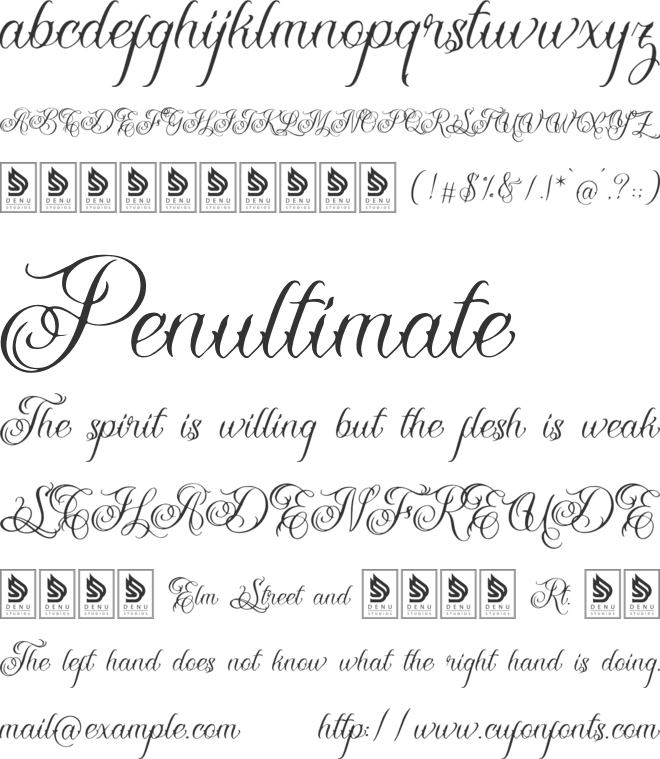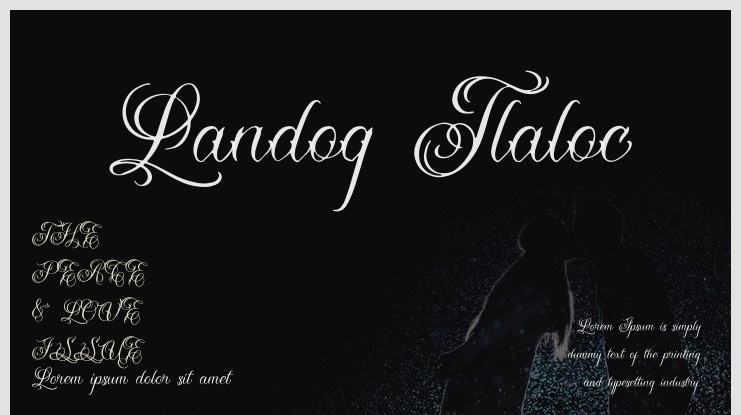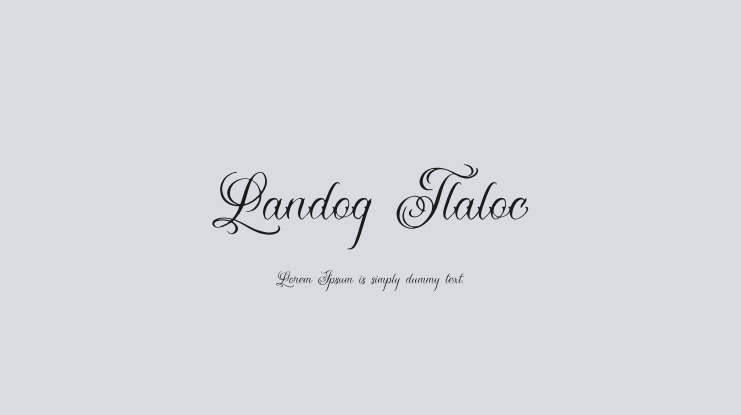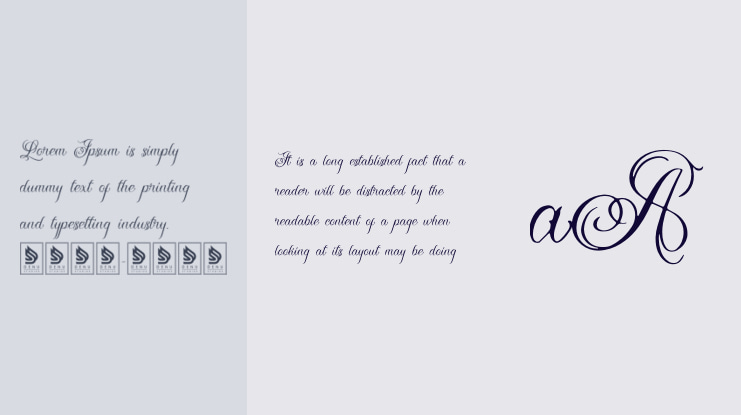
Landog Tlaloc Font
Landog Tlaloc | Tattoo Script Font is perfect for projects such as logos, branding, homeware designs, product packaging, mugs, quotes, posters, shopping bags, t-shirts, book covers, name cards, invitation and greeting cards, labels, photography watermarks, special events, and other projects that need a tattoo script touch.